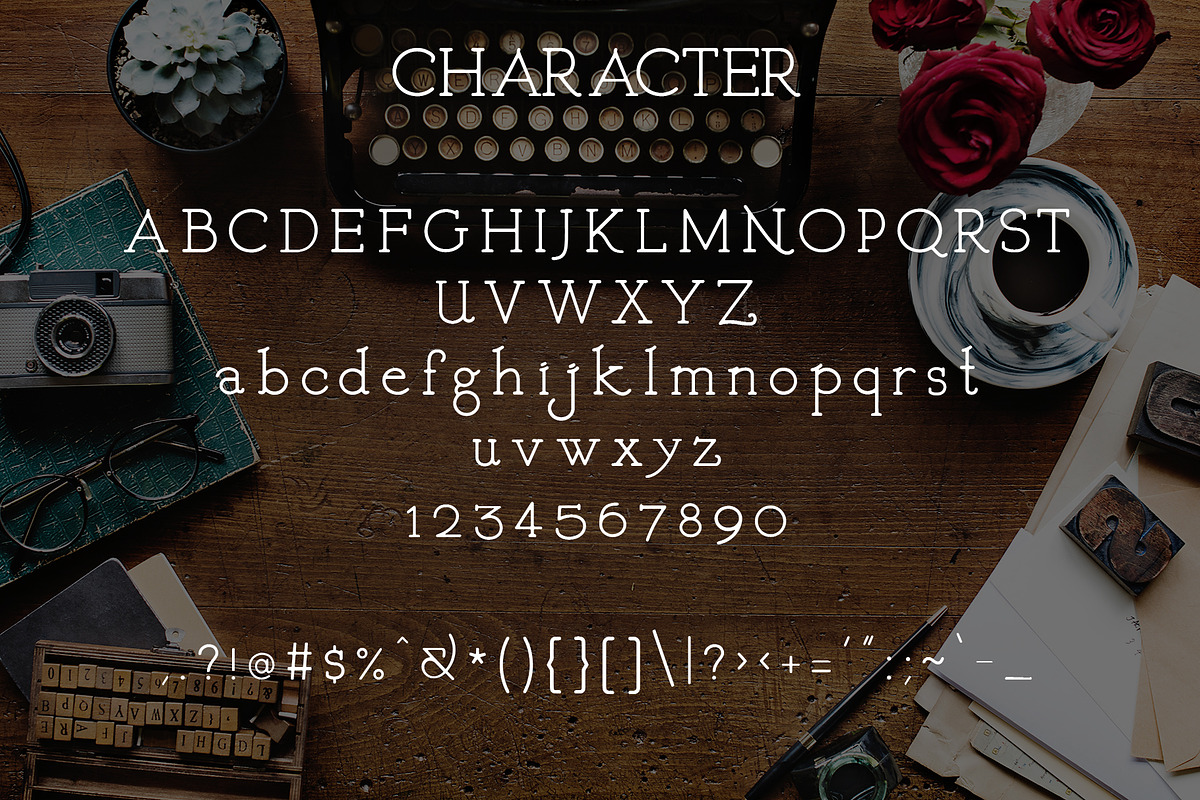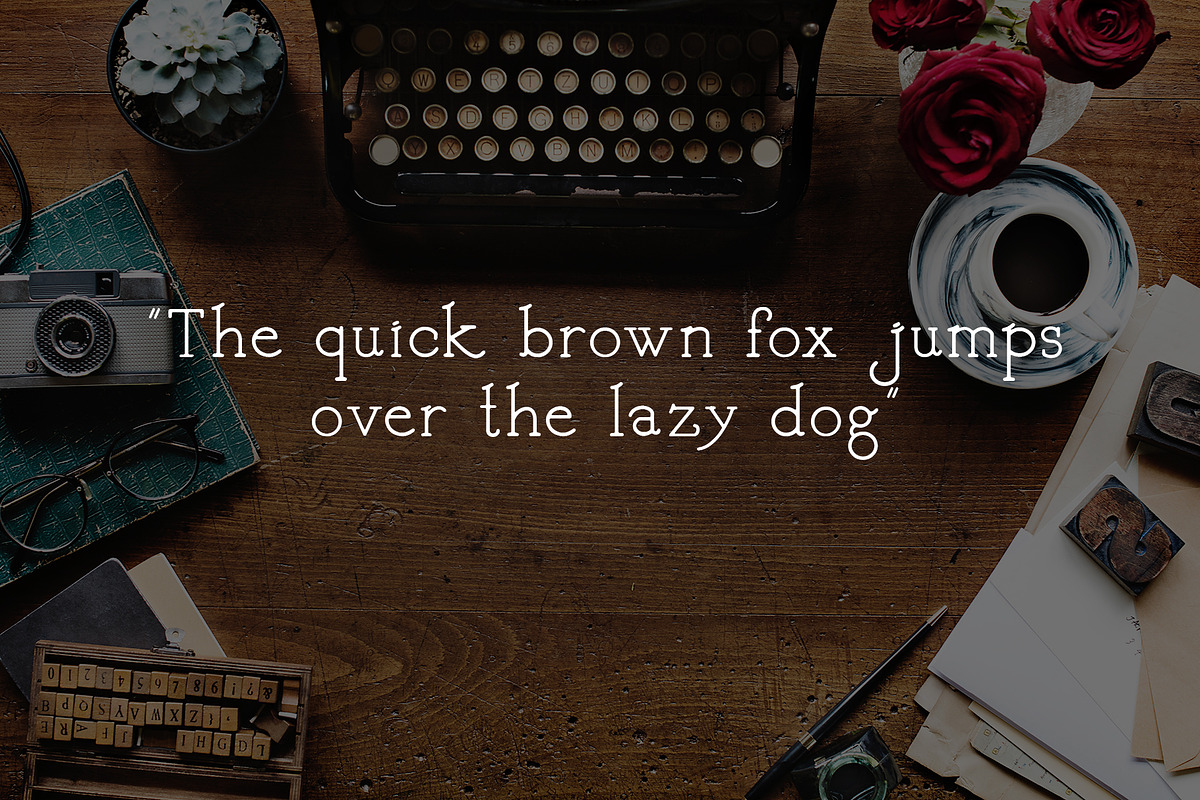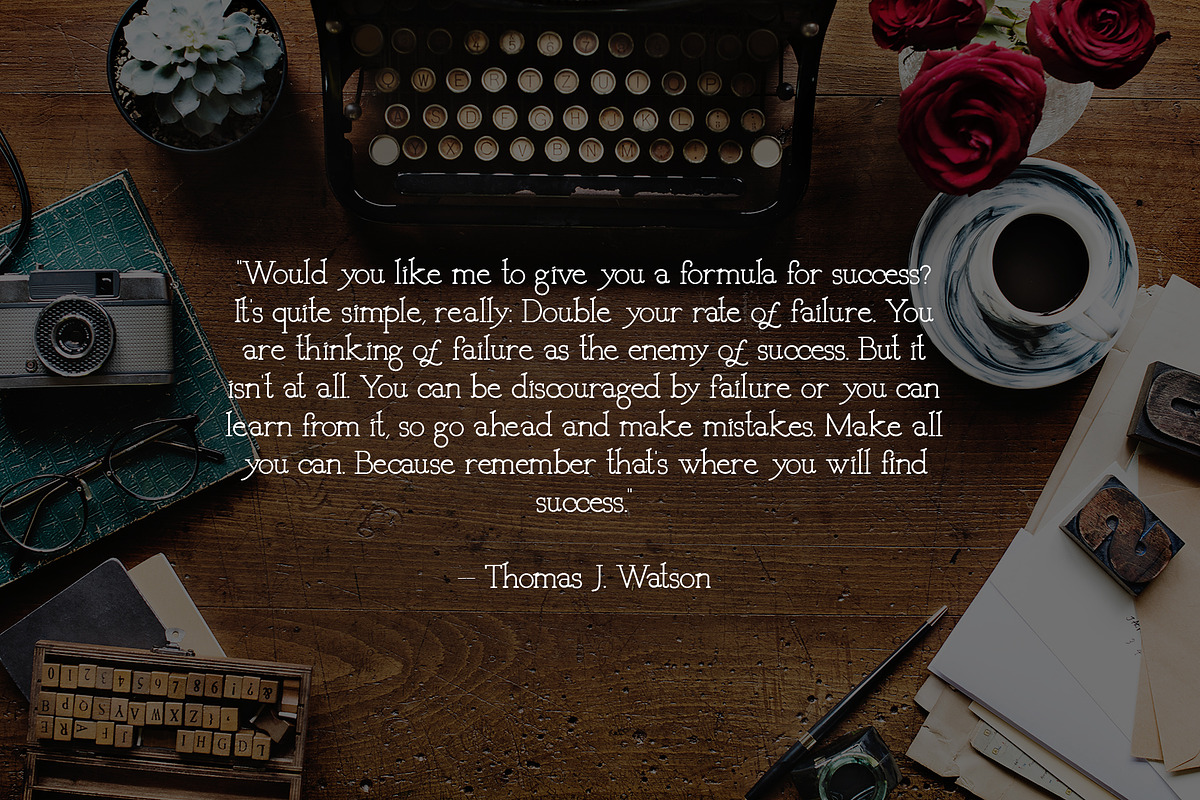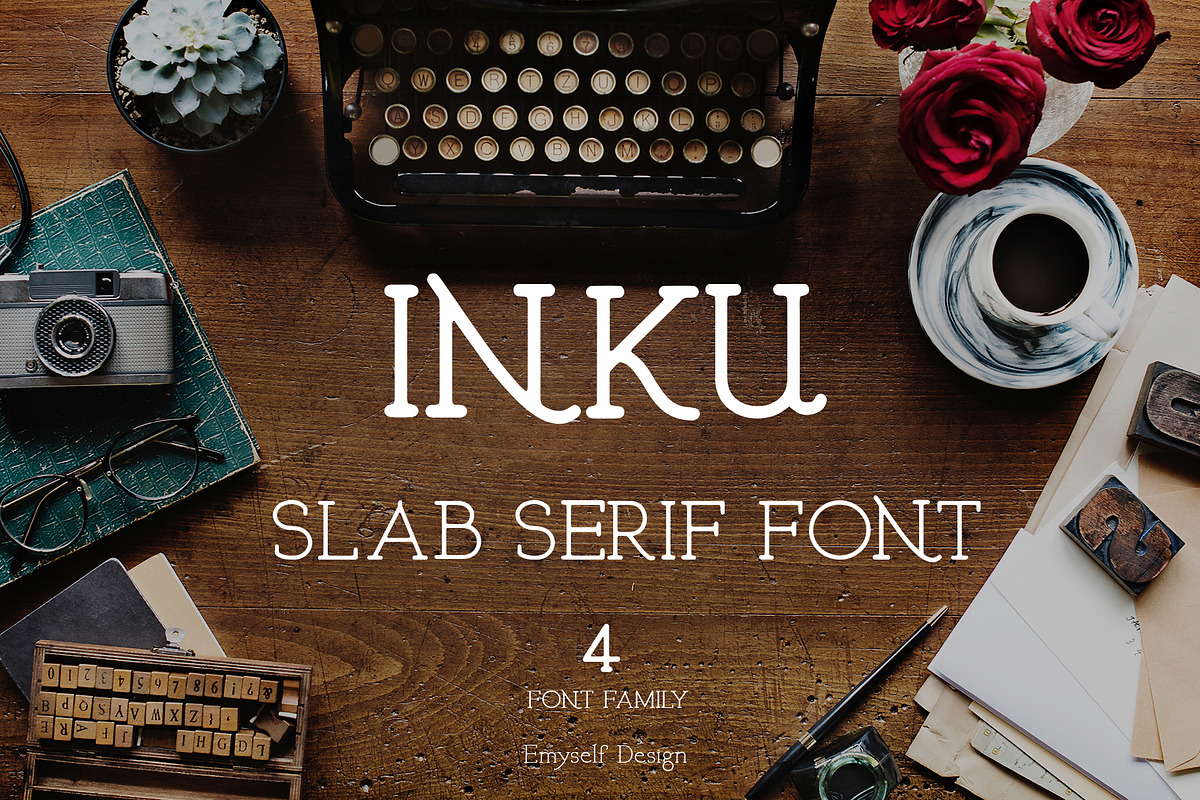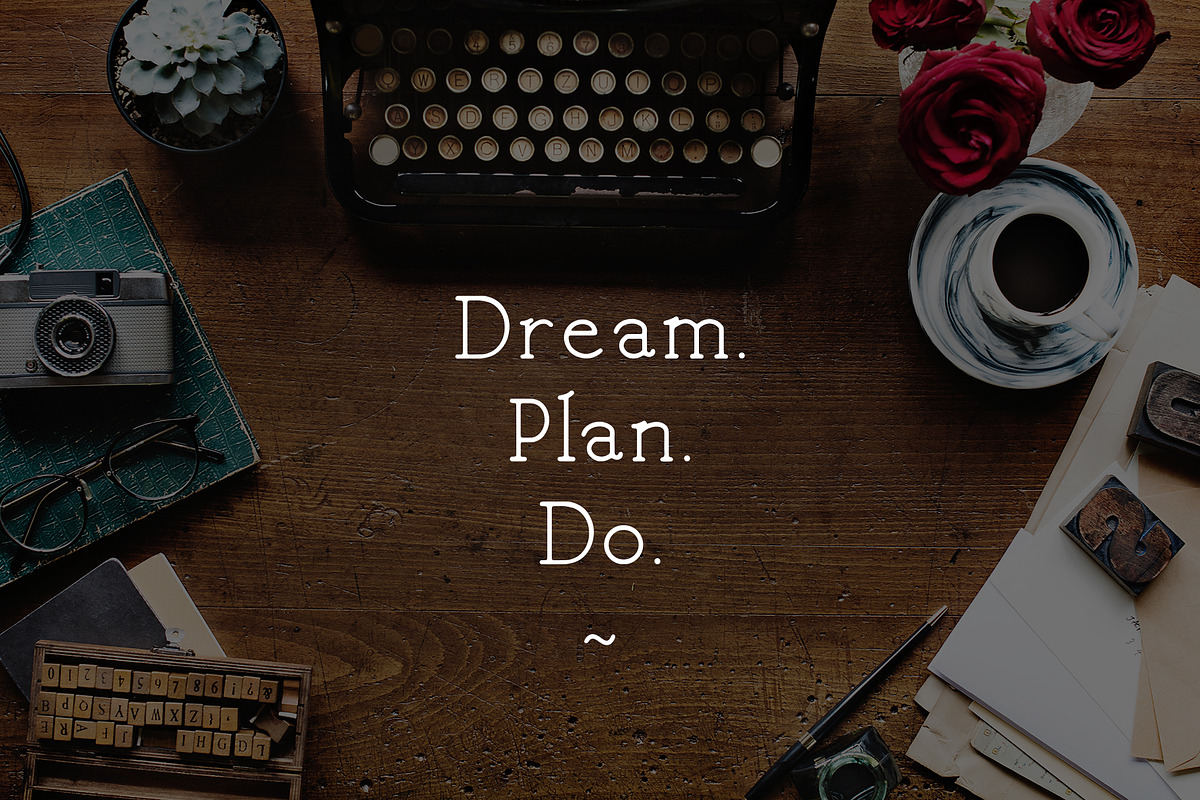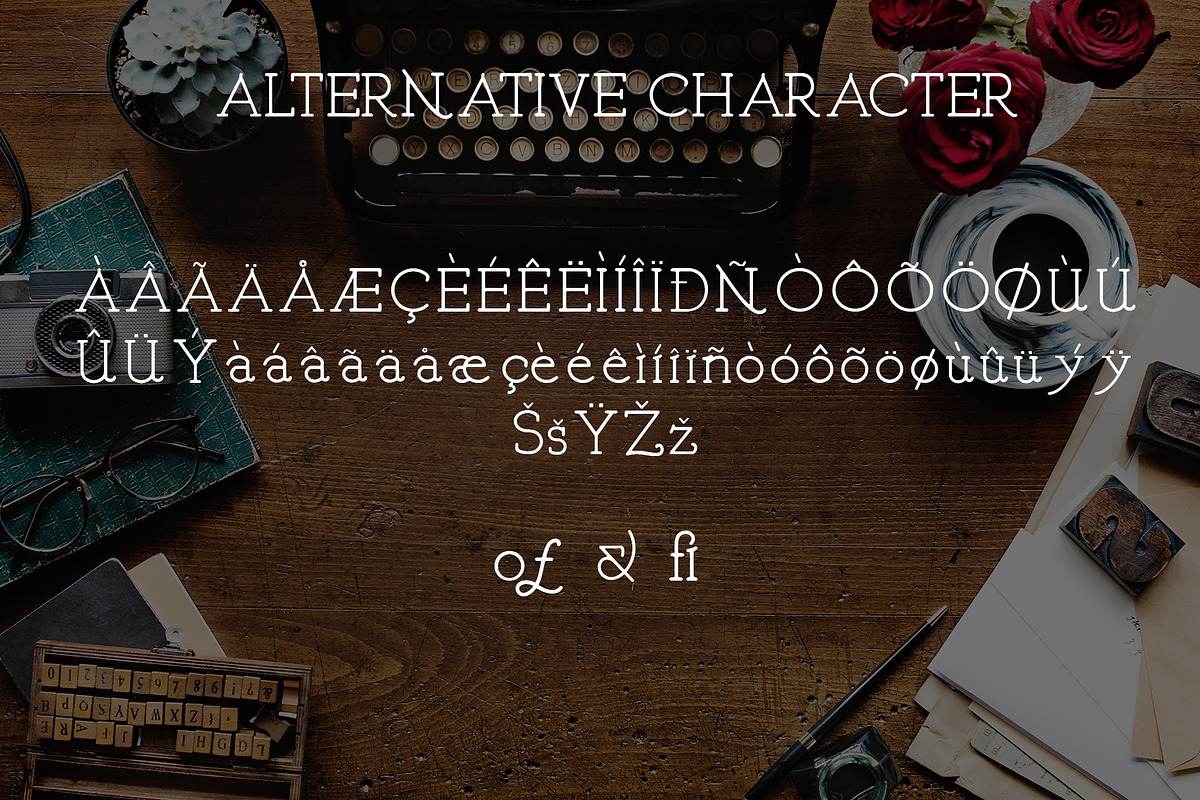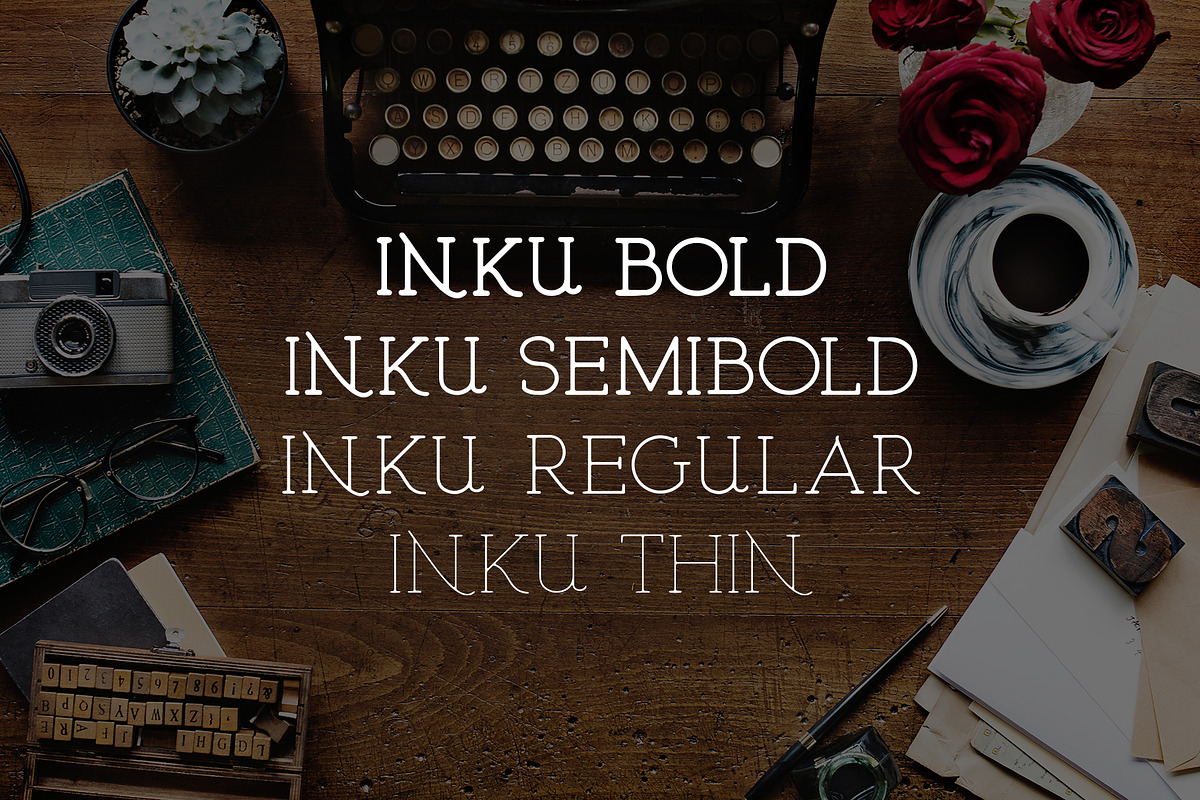
Inku font ( 4 font family)
introducing inku font is a unique serif font slab , inspired by some speedball fonts and hand lettering. This font is suitable for logo, poster, headline and more.
there are 4 fonts in it :
There are also alternate font
- inku Regular
- inku semibold Regular
- inku thin Regular
- inku Bold